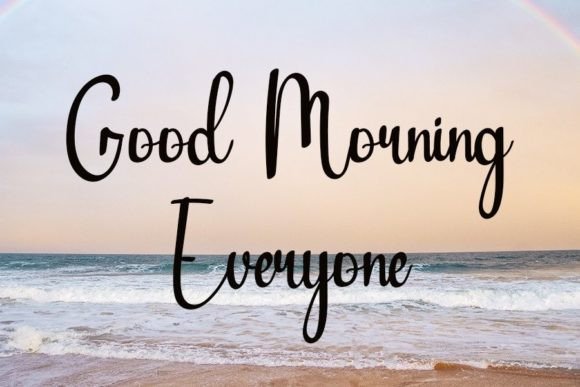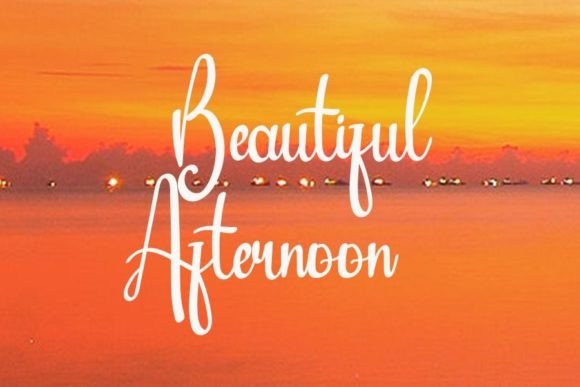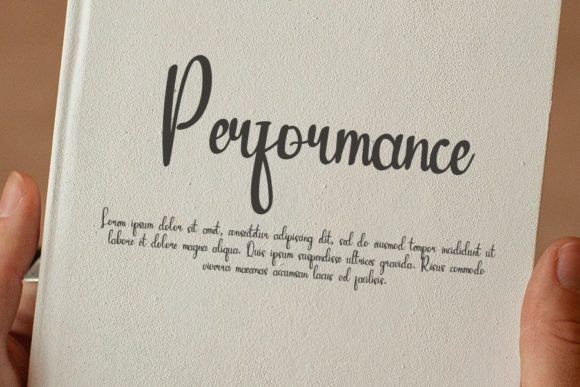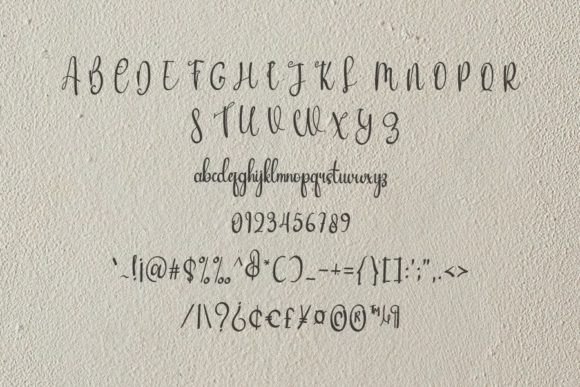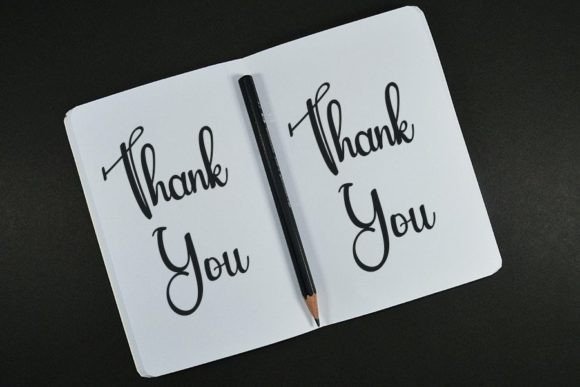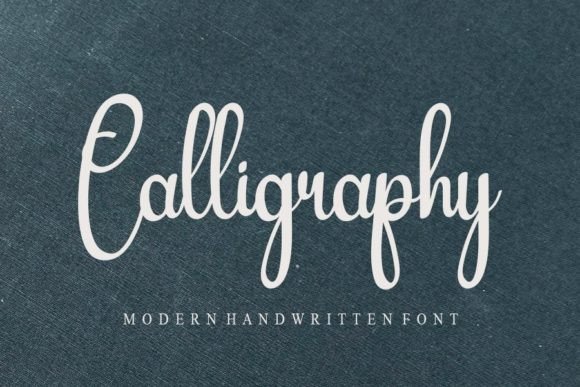
Discover the Elegance of Calligraphy Font: Elevate Your Designs with a Personal Touch
Calligraphy is an art form that has been cherished for centuries, with its beautiful, flowing script and elegant lettering. In the digital age, calligraphy fonts have become increasingly popular among designers, crafters, and artists looking to add a personal touch to their projects. One such font that has gained significant attention is the Calligraphy Font, a friendly handwritten font designed to bring a touch of sophistication and modernity to your creative endeavors.
What Makes Calligraphy Font Stand Out?
The Calligraphy Font is carefully crafted to strike a balance between classic calligraphic influences and contemporary design elements. This unique blend allows it to feel both timeless and fresh, making it an excellent choice for a wide range of projects. Whether you’re working on a wedding invitation, a branding campaign, or a DIY craft, this font is sure to make your designs stand out.
Key Features of Calligraphy Font
• Classy Calligraphic Influences: The Calligraphy Font boasts elegant, flowing lines and curves reminiscent of traditional calligraphy.
• Contemporary and Fresh: With its modern twist, this font feels current and trendy, perfect for designers looking to create unique and eye-catching designs.
• Handwritten Charm: The font’s handwritten nature adds a personal touch to your projects, making them more relatable and engaging.
• Versatility: The Calligraphy Font can be used for a variety of projects, from digital designs to print materials, and even DIY crafts.
How to Use Calligraphy Font in Your Designs
Adding the Calligraphy Font to your designs is a straightforward process that can elevate your work in numerous ways. Here are a few ideas to get you started:
• Wedding Invitations and Stationery: The Calligraphy Font is perfect for creating beautiful, elegant wedding invitations, save-the-date cards, and other stationery.
• Branding and Packaging: Use this font to add a touch of sophistication to your brand’s packaging, labels, and marketing materials.
• DIY Crafts: The Calligraphy Font can be used for a variety of DIY crafts, such as hand-lettered quotes, journaling, and decorative art.
• Digital Designs: This font is ideal for digital designers looking to create stunning social media graphics, blog headers, and website elements.
Tips for Getting the Most Out of Calligraphy Font
To maximize the impact of the Calligraphy Font in your designs, consider the following tips:
• Experiment with Colors: Try pairing the Calligraphy Font with different colors and textures to create unique and eye-catching designs.
• Mix and Match: Combine the Calligraphy Font with other fonts and design elements to create visually appealing contrasts.
• Pay Attention to Spacing: Adjust the spacing between letters and words to achieve a balanced and harmonious look.
The Calligraphy Font is a versatile and elegant addition to any designer’s toolkit. With its classy calligraphic influences, contemporary feel, and handwritten charm, this font is sure to elevate your creative projects and make them stand out. Whether you’re a seasoned designer or a crafty DIY enthusiast, the Calligraphy Font is an excellent choice for adding a personal touch to your work. So why not give it a try and discover the beauty of calligraphy for yourself?